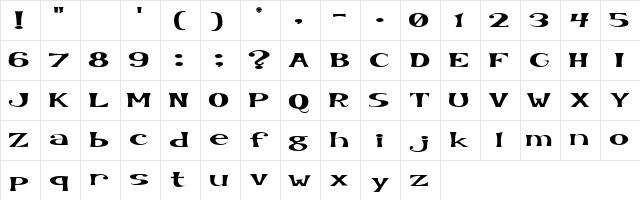
KookySquat Regular
Design Context for KookySquat Typeface
KookySquat is a composed and adaptable typeface that performs quietly and consistently across a wide range of design contexts.